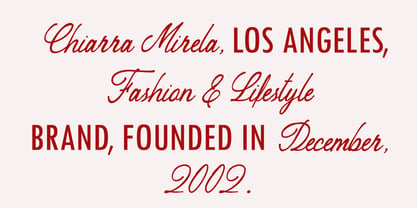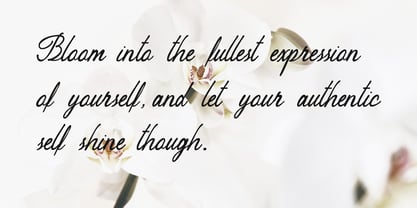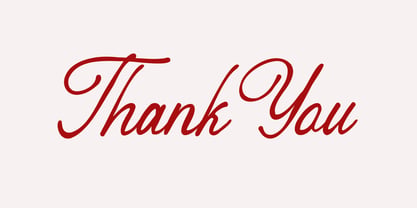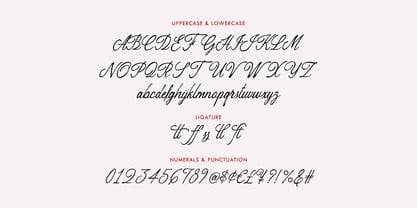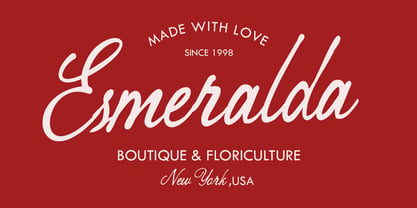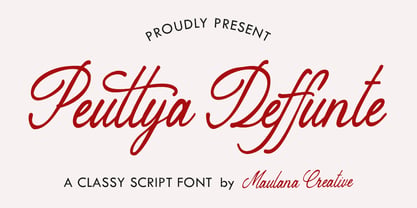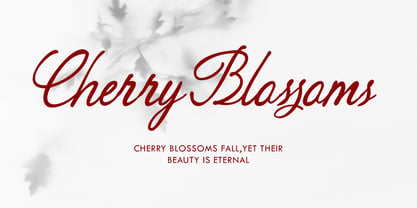
MC Peuttya Deffunte
von Maulana Creative
Die Schriftfamilie MC Peuttya Deffunte wurde von Gilang Maulana entworfen und von Maulana Creative veröffentlicht. MC Peuttya Deffunte enthält 1 Stile. Mehr über diese Familie
Peuttya Deffunte is a script typeface designed to bring an air of effortless elegance and timeless class to your creative projects. Crafted by Maulana Creative, this font features flowing, organic strokes and a balanced slant that mimics high end calligraphy. With its comprehensive set of uppercase and lowercase characters, stylish ligatures, and clean numerals, it is the perfect choice for luxury branding, wedding invitations, fashion editorials, and signature logos. Whether you're designing for a boutique in New York or a lifestyle brand in Los Angeles, Peuttya Deffunte adds a touch of authentic, handwritten charm. Perfect for: - Branding & Logo Design - Wedding Stationery & Invites - Fashion & Lifestyle Photography Overlays - Social Media Templates
Designer: Gilang Maulana
Foundry: Maulana Creative